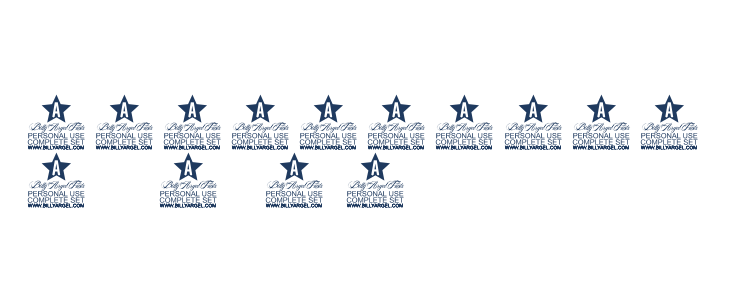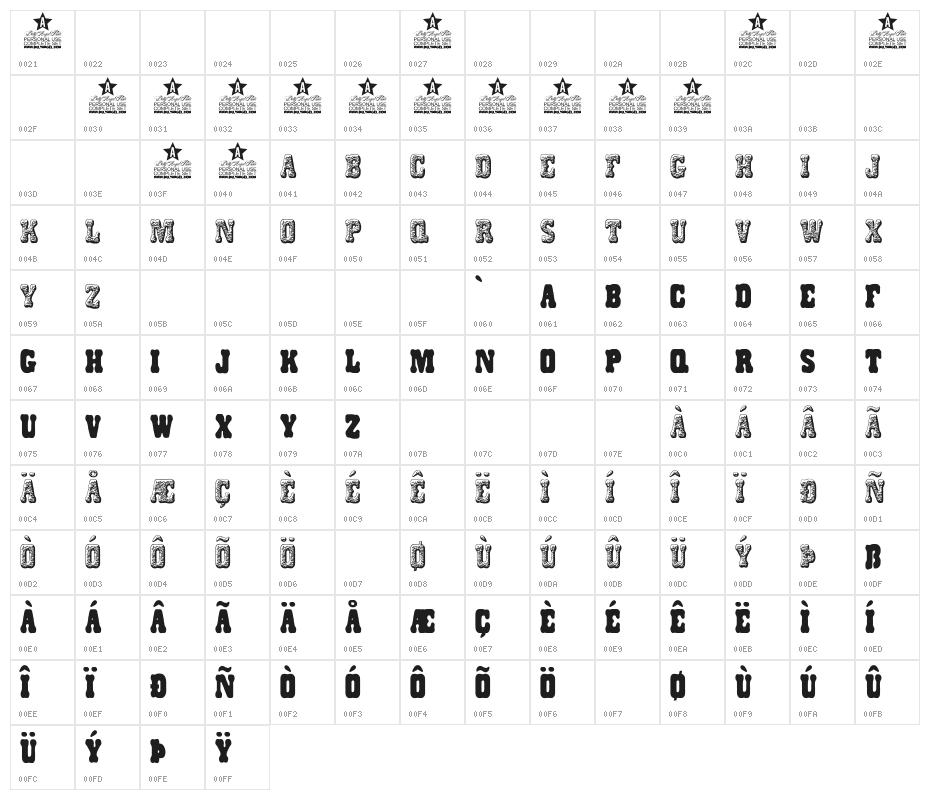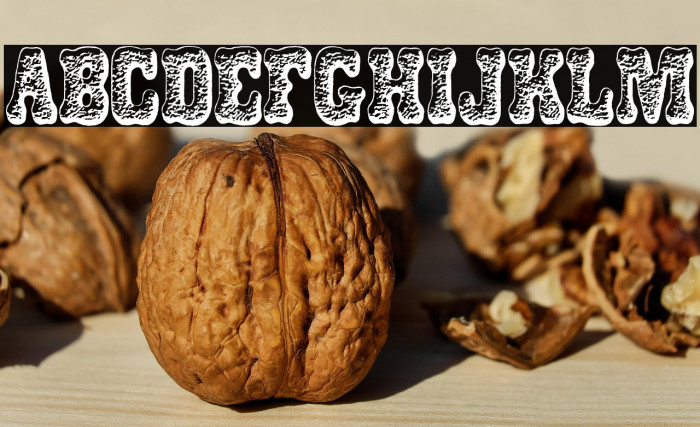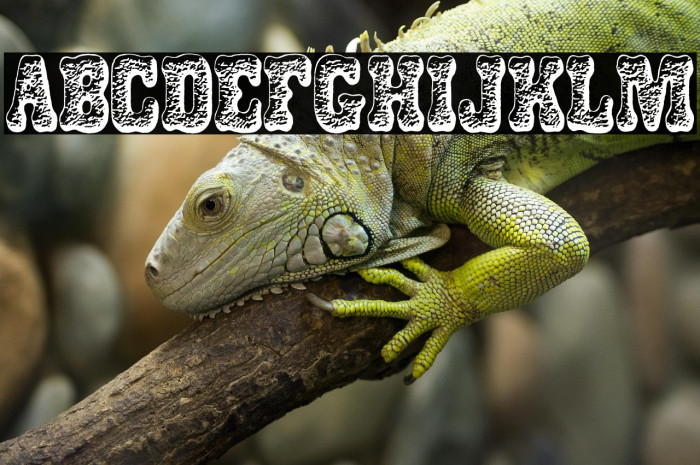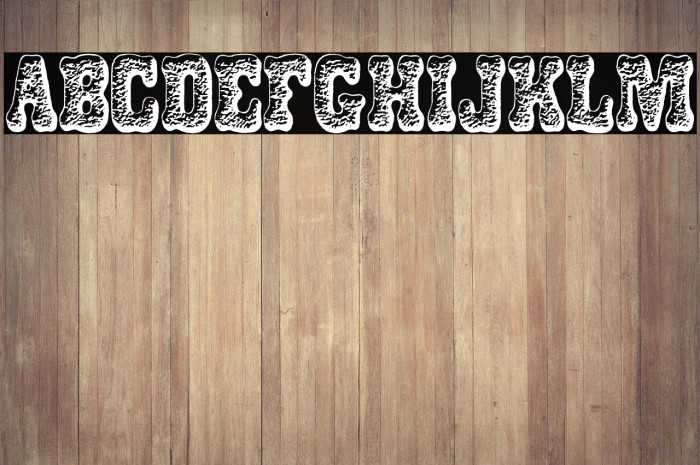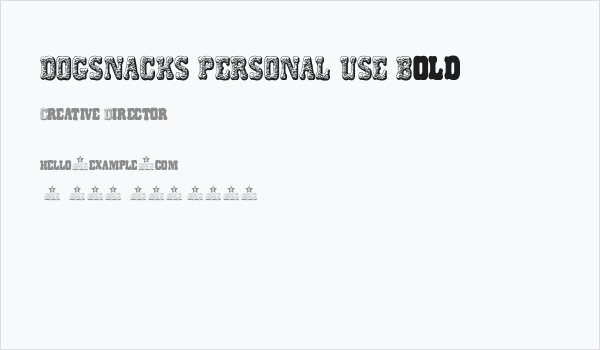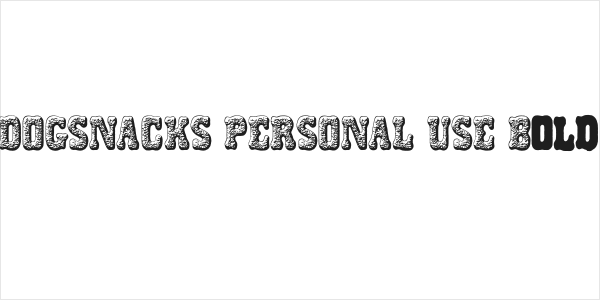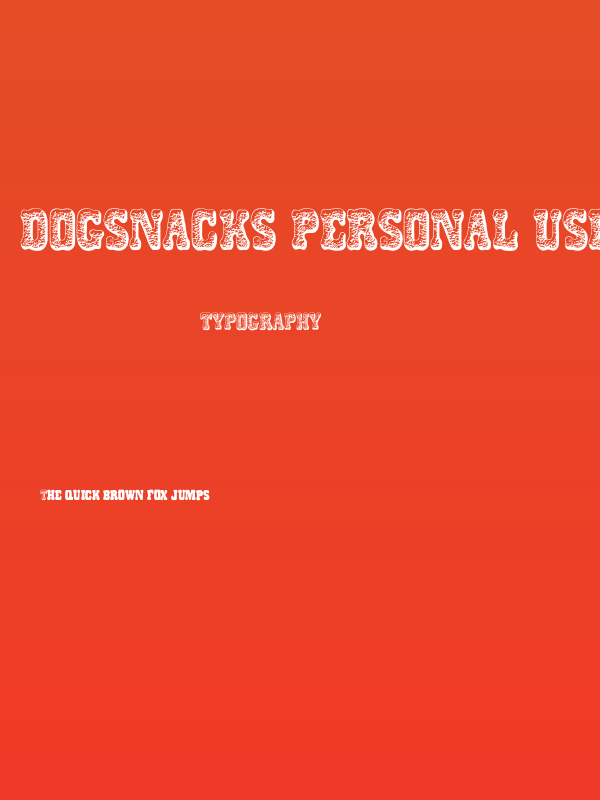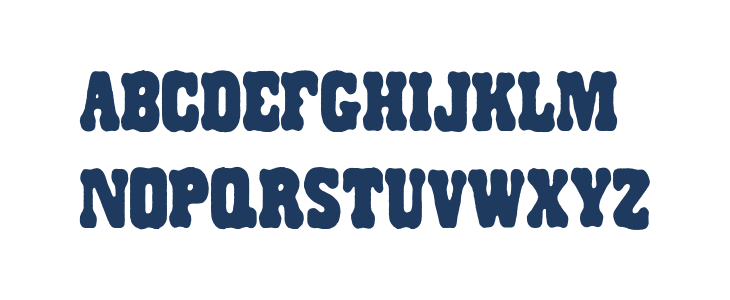
DOGSNACKS PERSONAL USE Bold Font
DOGSNACKS PERSONAL USE Bold Description
This font features a bold and playful style, characterized by its thick, chunky letterforms that convey a sense of fun and whimsy. The uppercase letters have a textured appearance, adding a unique tactile quality that makes the font stand out. The boldness of the characters ensures high visibility, making it suitable for eye-catching designs. The font's playful nature is enhanced by its irregular edges and organic shapes, giving it a hand-drawn feel. This style is perfect for projects that require a touch of creativity and personality.
| Overall Style | Playful, Creative |
| Proposed Projects | Ideal for children's book covers, playful branding, event posters, and creative packaging. |